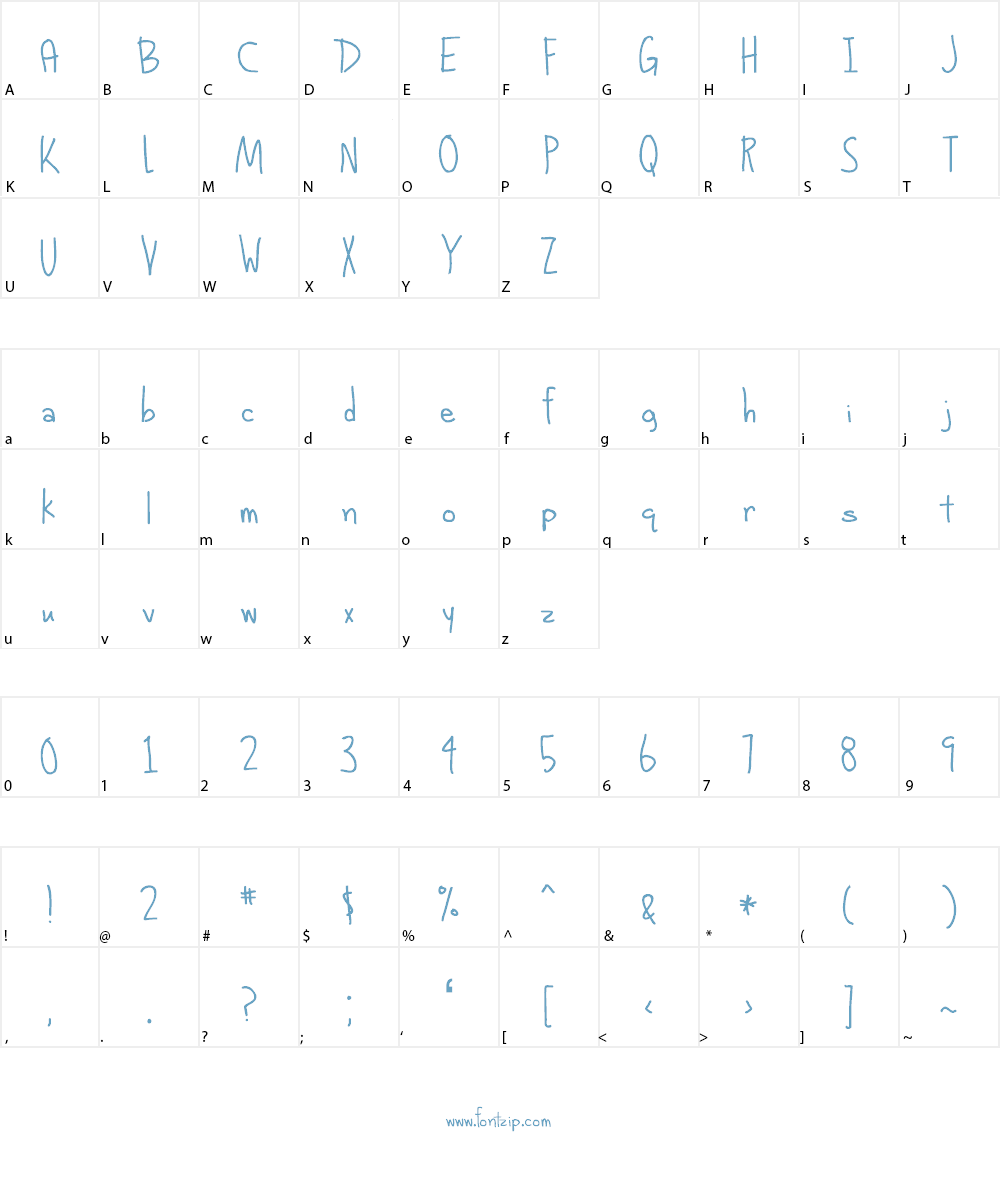
Alphabetized Cassette Tapes is a tall & awkward font family remix! It has 357 characters, including lots of accented letters.
The original font, a messy handwriting, was created in 2011. It has now been renamed the ‘classic’ version. :)